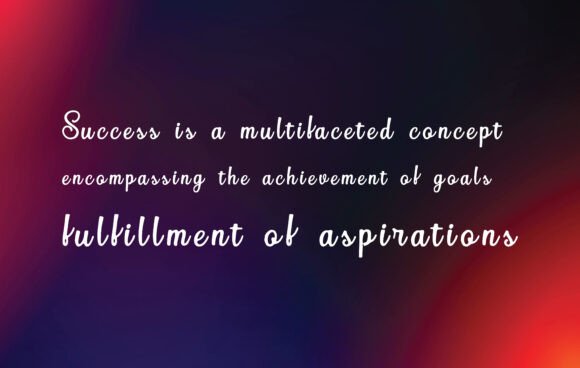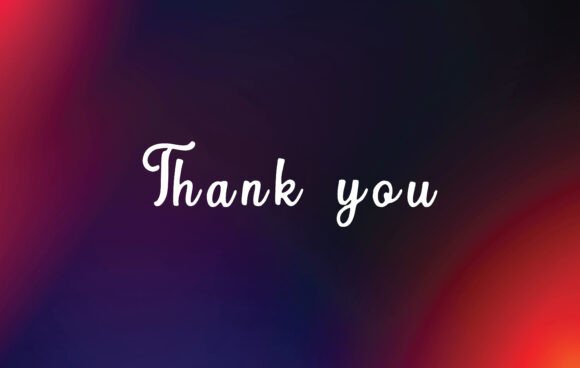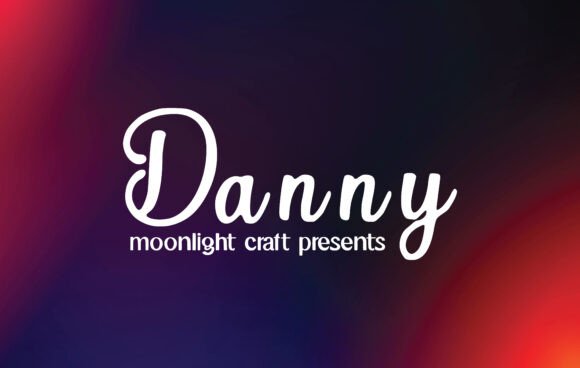
Introducing Danny Font: Elevate Your Creative Projects with a Lovely Handwritten Style
In the world of typography, a font can make all the difference in bringing your creative ideas to life. For designers, crafters, and anyone looking to add a personal touch to their projects, Danny Font is a game-changer. This beautiful handwritten font is designed to take your designs to the next level, offering a unique and captivating style that’s perfect for a variety of applications.
The Charm of Danny Font
Danny Font is a lovely and beautiful handwritten font that exudes warmth and personality. Its elegant strokes and fluid connections make it a joy to use, whether you’re creating eye-catching logos, branding materials, or inspirational quotes. With Danny Font, you can add a touch of sophistication and whimsy to your designs, setting them apart from the ordinary.
One of the best things about Danny Font is its versatility. This font is perfect for a wide range of creative projects, including:
- Logos and Branding: Create a lasting impression with a custom logo that showcases your brand’s personality. Danny Font’s unique style makes it ideal for crafting memorable and distinctive brand identities.
- Quotes and Typography: Add a touch of elegance to your quotes and typography projects. Danny Font’s flowing script is perfect for creating visually appealing and shareable content.
- Stationery and Invitations: Elevate your stationery and invitations with a personal touch. Danny Font is perfect for creating beautiful and distinctive wedding invitations, greeting cards, and more.
- Digital and Print Media: Use Danny Font to create stunning digital and print materials, such as brochures, flyers, and social media graphics.
Why Choose Danny Font?
So, what makes Danny Font the best choice for your creative projects? Here are just a few reasons why designers and crafters love this font:
- Unique Style: Danny Font offers a distinctive and captivating style that’s sure to grab attention.
- Ease of Use: This font is easy to read and works well in a variety of sizes, making it perfect for both digital and print applications.
- High-Quality Design: Danny Font is designed with precision and care, ensuring a high-quality look that’s consistent across all applications.
- Creative Freedom: With Danny Font, you have the freedom to experiment with different styles, colors, and textures, giving you endless creative possibilities.
Tips for Using Danny Font
To get the most out of Danny Font, here are a few tips to keep in mind:
- Experiment with Colors: Try pairing Danny Font with different colors and textures to create unique and eye-catching designs.
- Play with Sizes: Experiment with different font sizes to create visual interest and hierarchy in your designs.
- Mix and Match: Combine Danny Font with other fonts and styles to create a distinctive and personalized look.
In conclusion, Danny Font is a beautiful and versatile handwritten font that’s perfect for designers, crafters, and anyone looking to add a personal touch to their creative projects. With its unique style, ease of use, and high-quality design, Danny Font is the perfect choice for creating eye-catching logos, branding materials, quotes, and more. So why wait? Download Danny Font today and take your creative ideas to the next level!